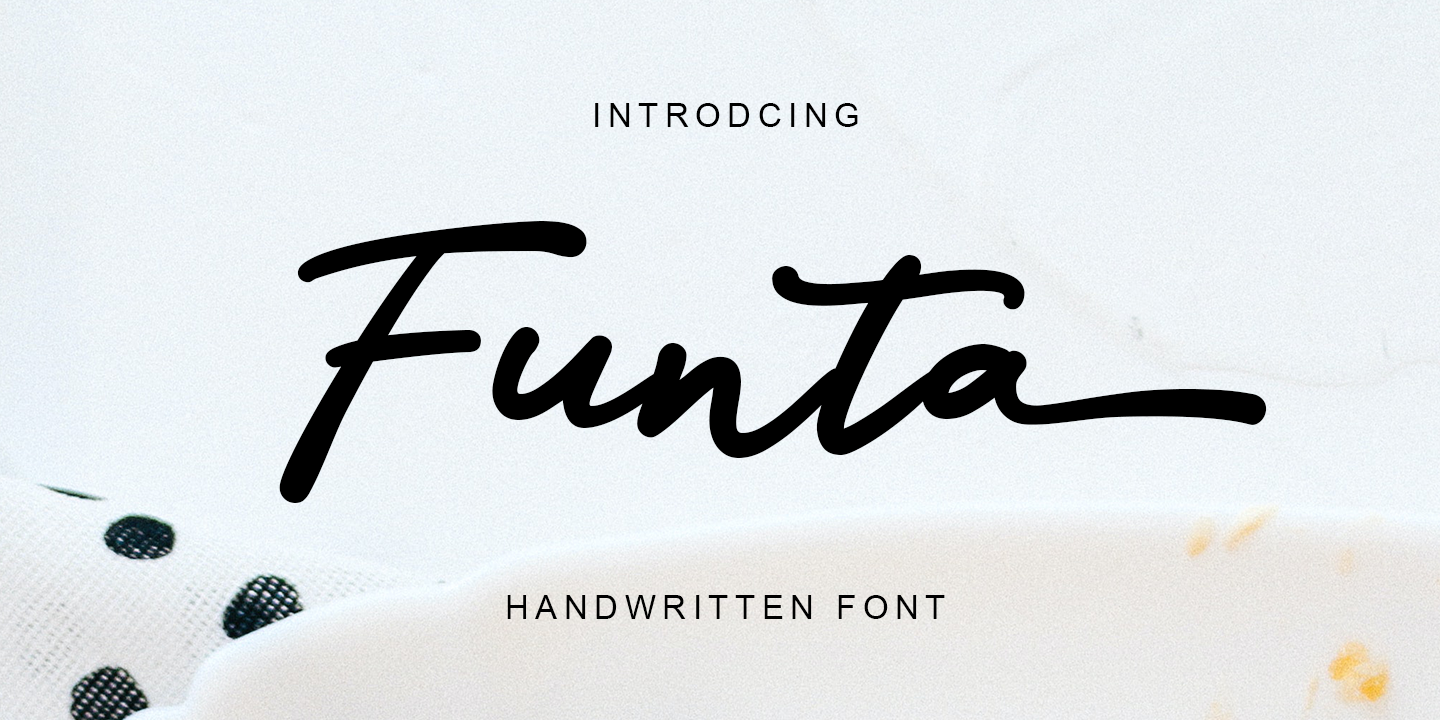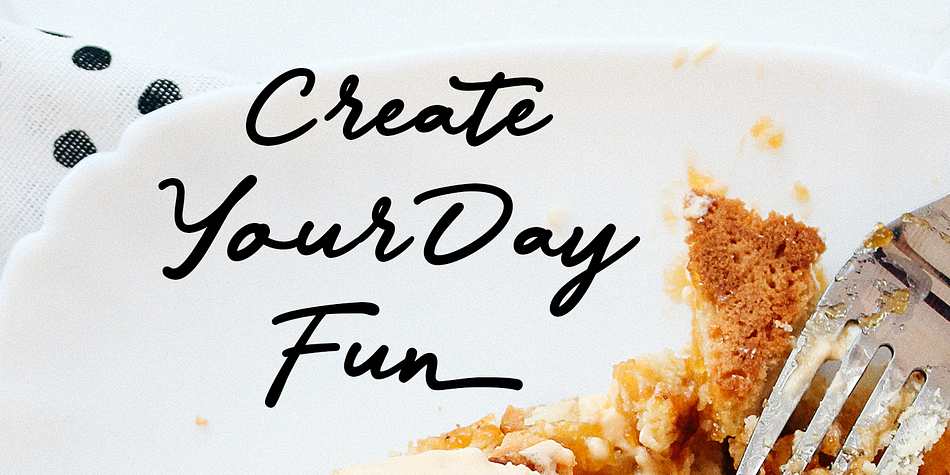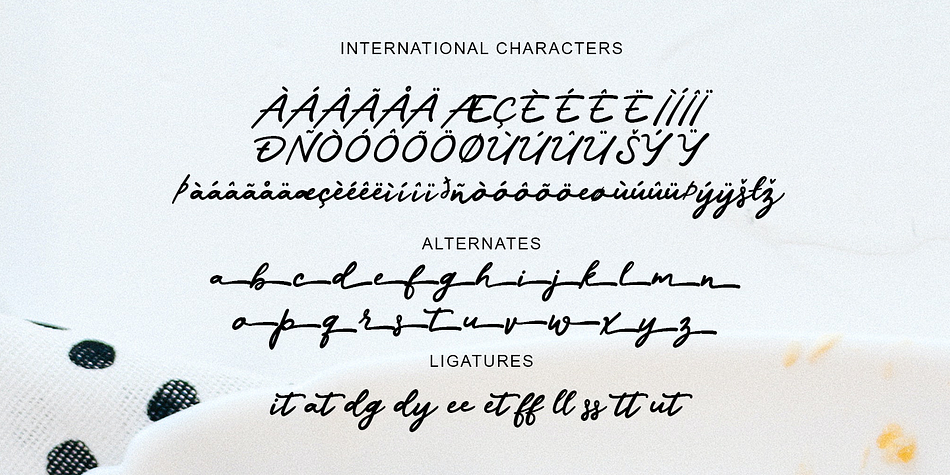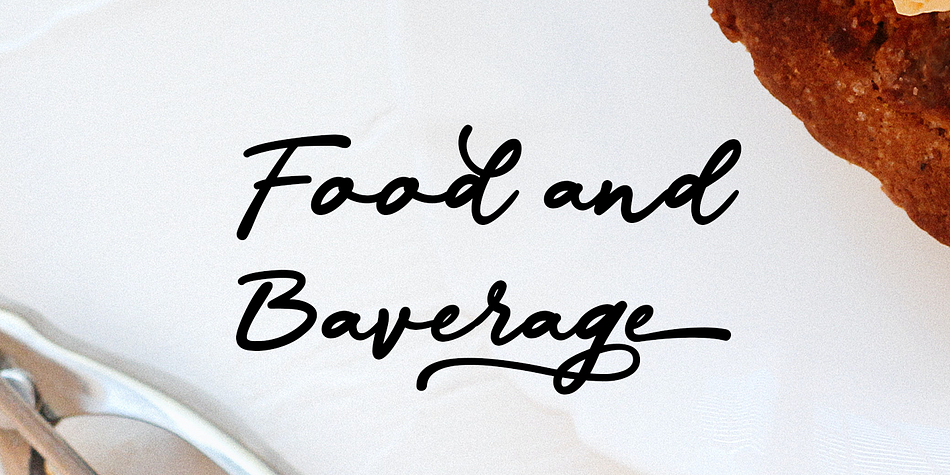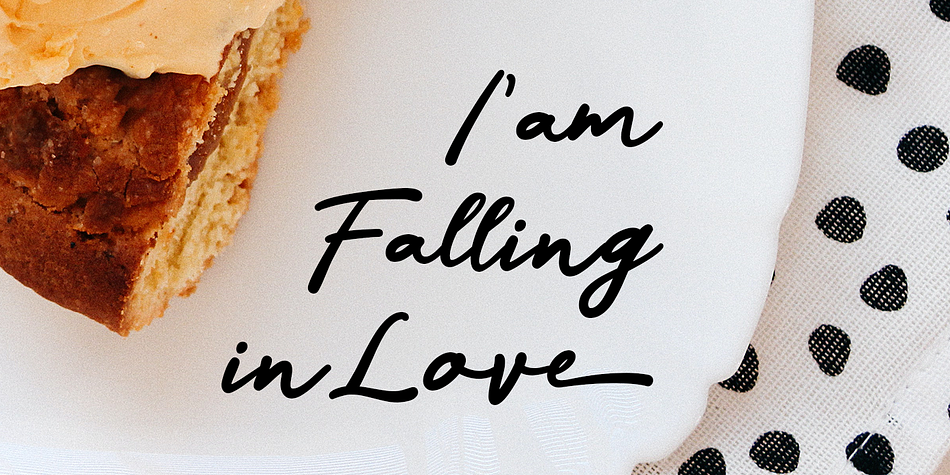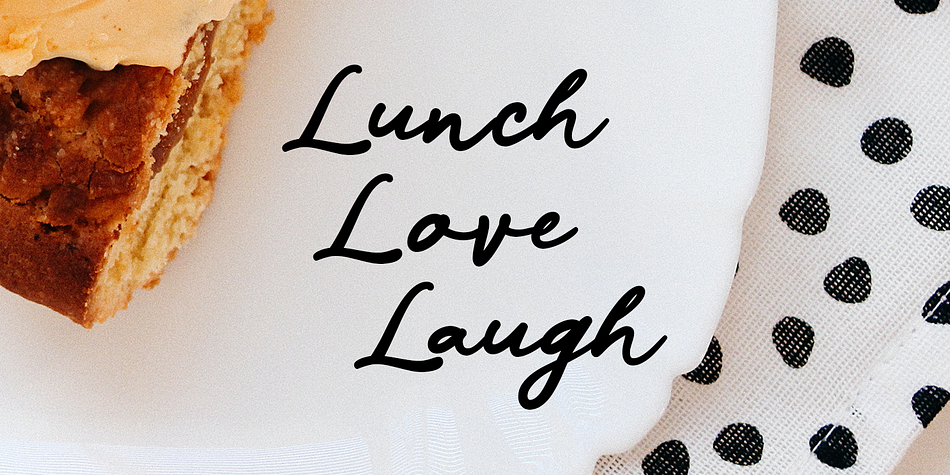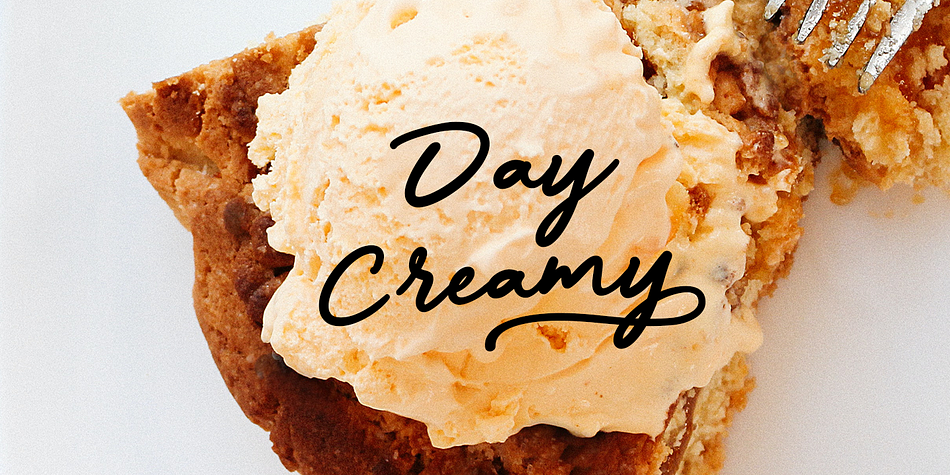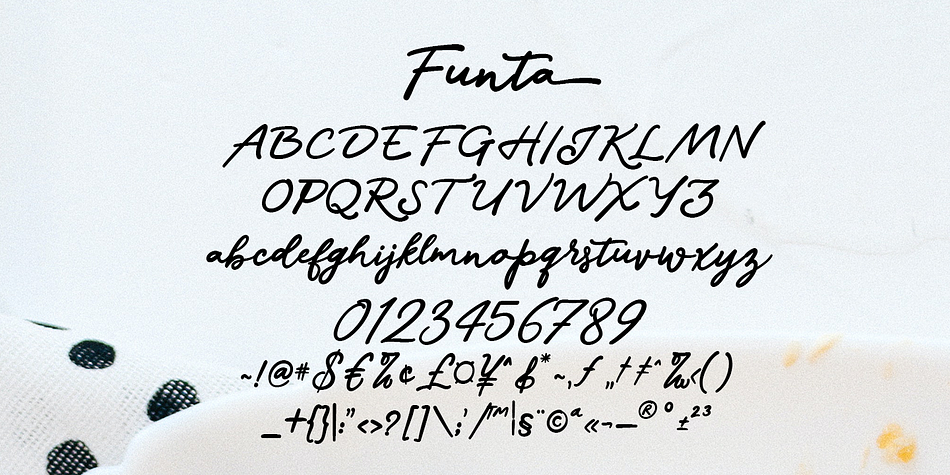
Funta
Funta is a brush script and hand drawn font family published by Gatype.
Funta Script is a typeface or font design that can be used to style text. It is characterized by tails and is slightly cursive, often giving the appearance of playful or relaxed text. Funta Script is widely used for design projects such as invitations, greeting cards, posters, headers or just used to express words over the background.